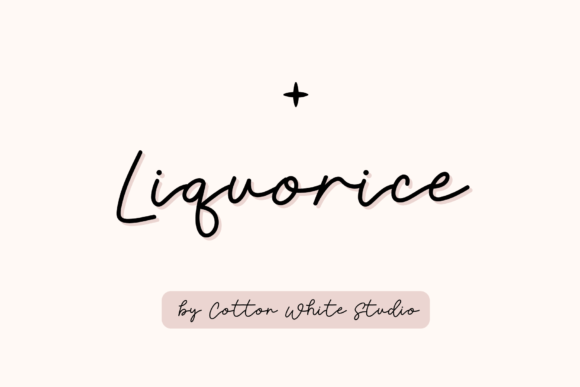
Unleash the charm and elegance of handwritten artistry with Liquorice Font, a captivating script font family designed to elevate your creative expressions. Immerse yourself in the beauty of meticulously crafted letters that emulate the flow and grace of a skilled calligrapher's hand.
Liquorice Font is the perfect choice for adding a touch of sophistication and uniqueness to your projects. Its carefully designed curves and flourishes lend an air of authenticity and charm that is sure to leave a lasting impression. Whether you're a designer, blogger, or simply someone who appreciates beautiful typography, Liquorice Font is the perfect addition to your creative toolkit.
With its versatility and timeless appeal, Liquorice Font is suitable for a wide range of applications. Use it to create stunning logos and branding materials that exude elegance and professionalism. Craft heartfelt invitations and greeting cards that convey your emotions in a truly personal way. Add a touch of whimsical charm to your blog posts and social media graphics. Or, use Liquorice Font to create personalized planners and journals that reflect your unique style.
The possibilities are endless with Liquorice Font. Let your creativity soar as you explore the many ways to incorporate this beautiful font into your projects. Experience the joy of creating designs that are both visually appealing and deeply meaningful.
Don't settle for ordinary fonts that blend into the background. Choose Liquorice Font and make a statement with your words. Its hand-crafted beauty will captivate your audience and leave them craving more.